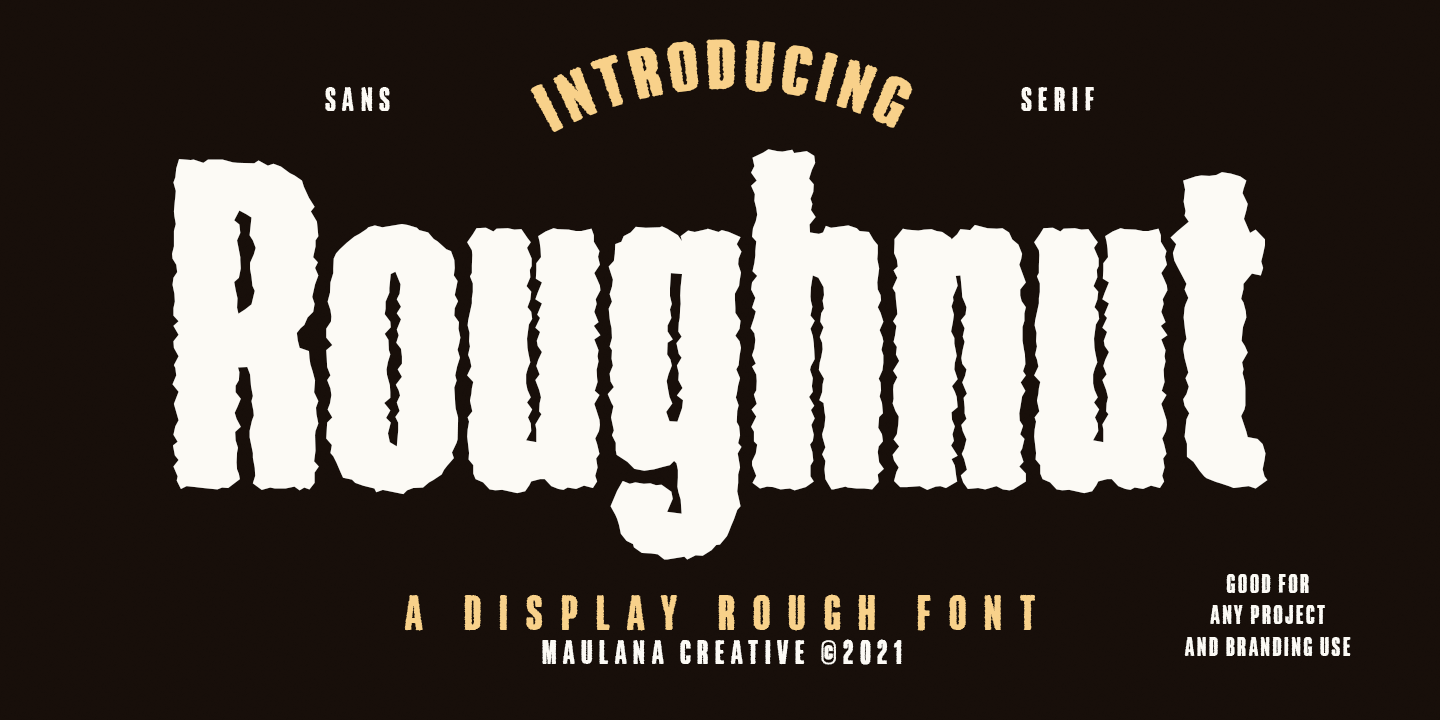
Roughnut Font Free Download is a rugged and playful display typeface perfect for adding a bold, handcrafted feel to your designs. Please note: you must purchase a license for commercial use — this font is available as a free download strictly for personal and testing purposes.
Ideal for posters, branding, packaging, social media graphics, and editorial projects, Roughnut Font Free Download brings texture and personality to any creative work.
What makes this font exciting is its rough-edged strokes and imperfect, hand-drawn style that create a dynamic, authentic look that stands out in crowded designs.
The Roughnut font family includes Regular and Bold styles, offering flexibility for a variety of expressive typographic compositions.
If you want to inject a bold, creative energy into your projects, Roughnut Font Free Download is an excellent choice. Download it today, explore its unique character, and elevate your designs with attitude and flair.